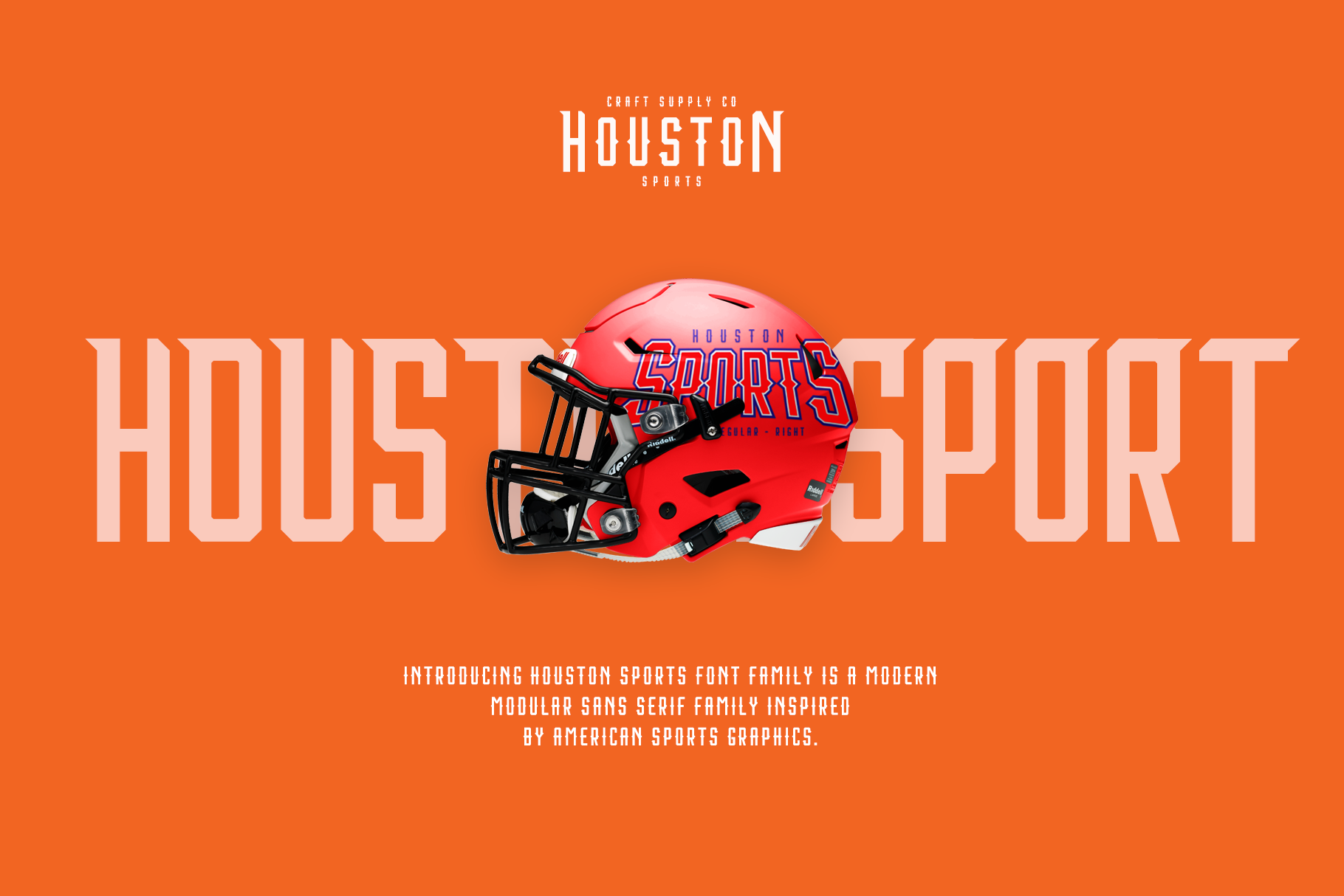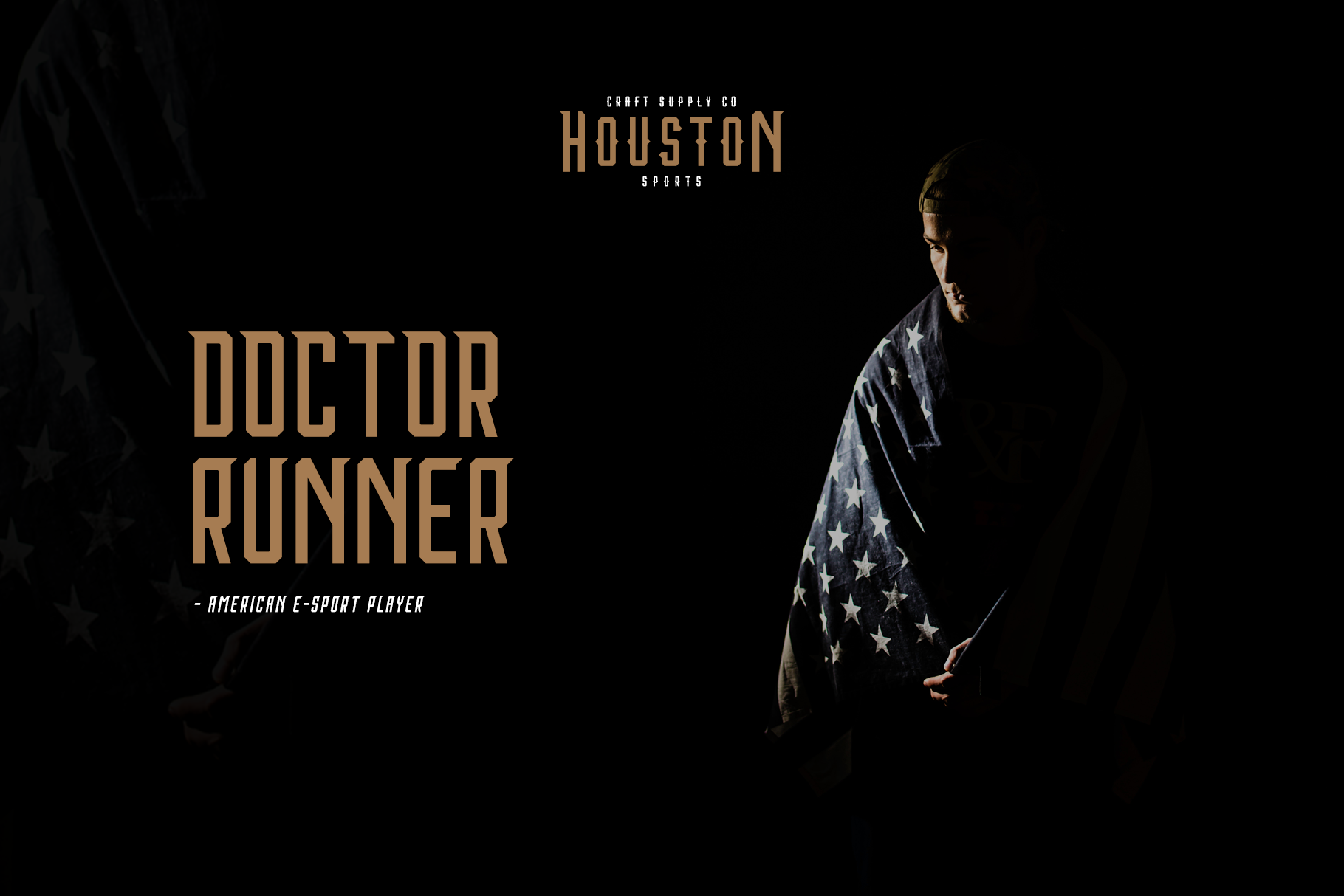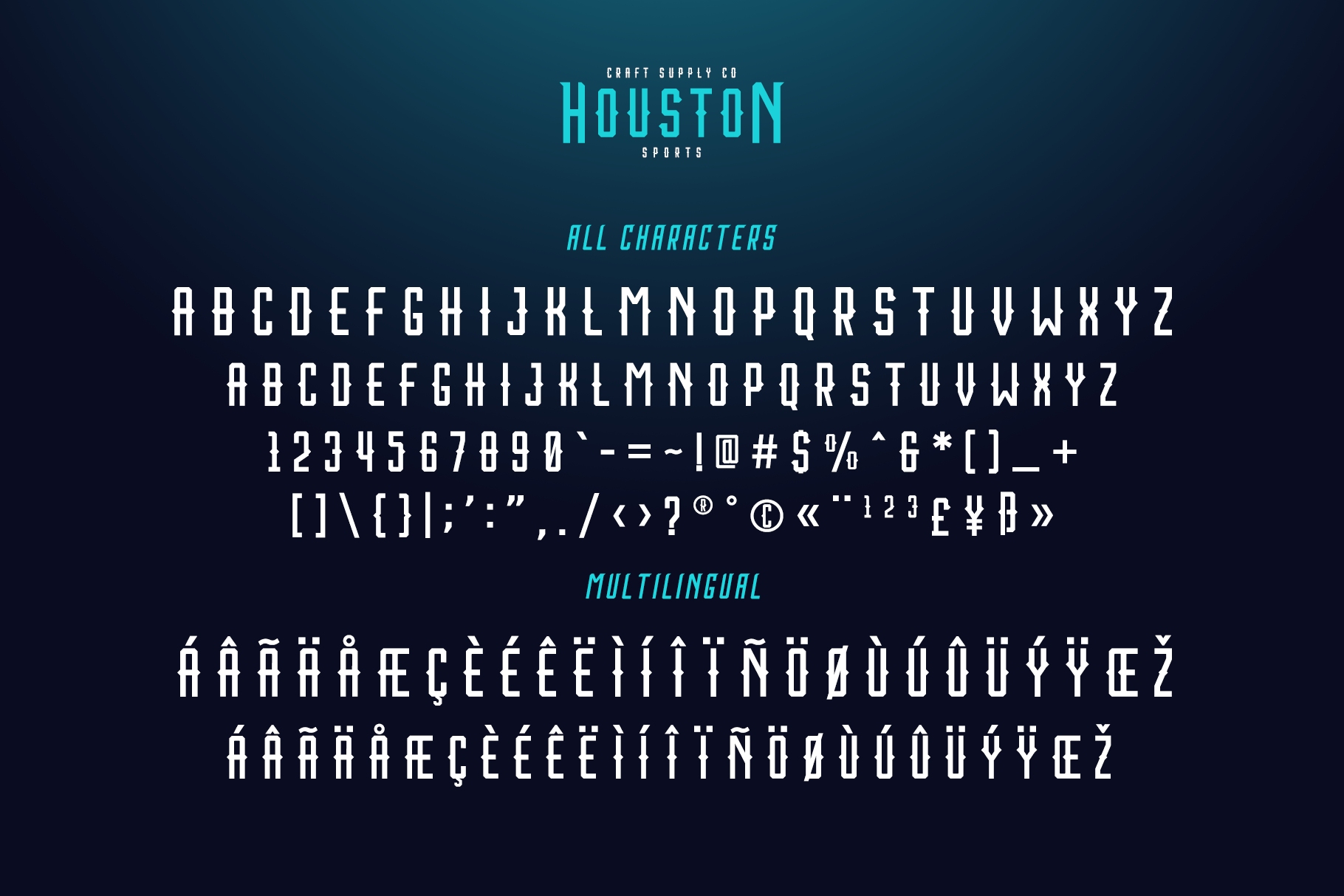
Introduction to Houston Sports Font
Have you ever found yourself rummaging through your old sports memorabilia, reminiscing about the thrill of the game, and the rush of adrenaline as your favorite team scored the winning goal? That’s exactly what sparked the creation of the Houston Sports Font Family, a modern modular display font that embodies the spirit of American sports graphics. As a designer, you know how crucial it is to have a unique design resource that can elevate your creative project to the next level.
With its compact solid design and versatile styles, the Houston Sports Font Family is a game-changer for any creative project. Whether you’re working on a sports-themed campaign or simply want to add a touch of athleticism to your design, this font is sure to deliver. And the best part? It’s available for free download, complete with a transparent background, making it easy to integrate into your design.
As a high-quality design resource, the Houston Sports Font Family is an invaluable asset for designers looking to take their creative projects to the next level. With its unique blend of styles and modern aesthetic, it’s the perfect addition to any design arsenal.
Key Features of Houston Sports Font
- Unique, modern design for creative projects and sports-related themes
- Perfect for sports-related branding, logos, and graphics, thanks to its bold and dynamic style
Honest Review: Houston Sports Font
As a designer, I’m always on the lookout for high-quality design resources to elevate my creative projects. Recently, I stumbled upon the Houston Sports Font, and I’m excited to share my honest review.
What works well: ✨ The Houston Sports Font has a unique, bold aesthetic that’s perfect for sports-themed projects. The font is highly legible, even at small sizes, making it ideal for use in logos, jerseys, and other promotional materials. The transparent background feature also makes it easy to customize and integrate into any design.
What could be improved: ⚠️ One limitation of the Houston Sports Font is its limited character set. While it’s perfect for sports-related projects, it may not be suitable for more general use. Additionally, the font may not be suitable for use in certain design software, due to compatibility issues.
Overall impression: I’m impressed with the Houston Sports Font’s quality and versatility. While it may have some limitations, it’s a great addition to any designer’s toolkit. If you’re working on a sports-themed project, I highly recommend giving it a try.
Pros:
- Unique, bold aesthetic
- Highly legible, even at small sizes
- Transparent background feature
- Perfect for sports-themed projects
Cons:
- Limited character set
- Compatibility issues with certain design software
Getting the Most Out of Houston Sports Font
To get the most out of the Houston Sports Font, use it in combination with other design elements to create a cohesive look. Experiment with different font sizes, styles, and colors to add visual interest to your design. The font’s high-quality design makes it perfect for use in a variety of creative projects.
Common Use Cases for Houston Sports Font
The Houston Sports Font is commonly used in sports-themed designs, such as logos, posters, and social media graphics. It can also be used in other creative projects, such as presentations, infographics, and brochures.